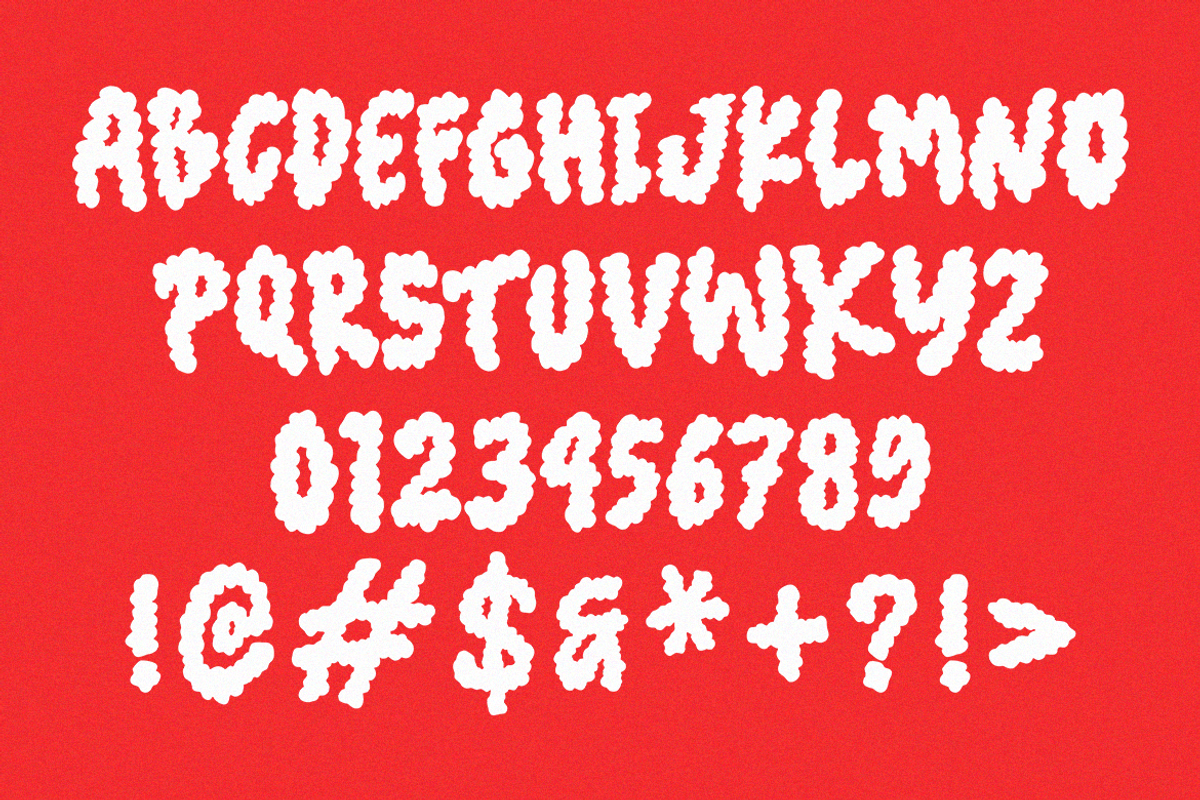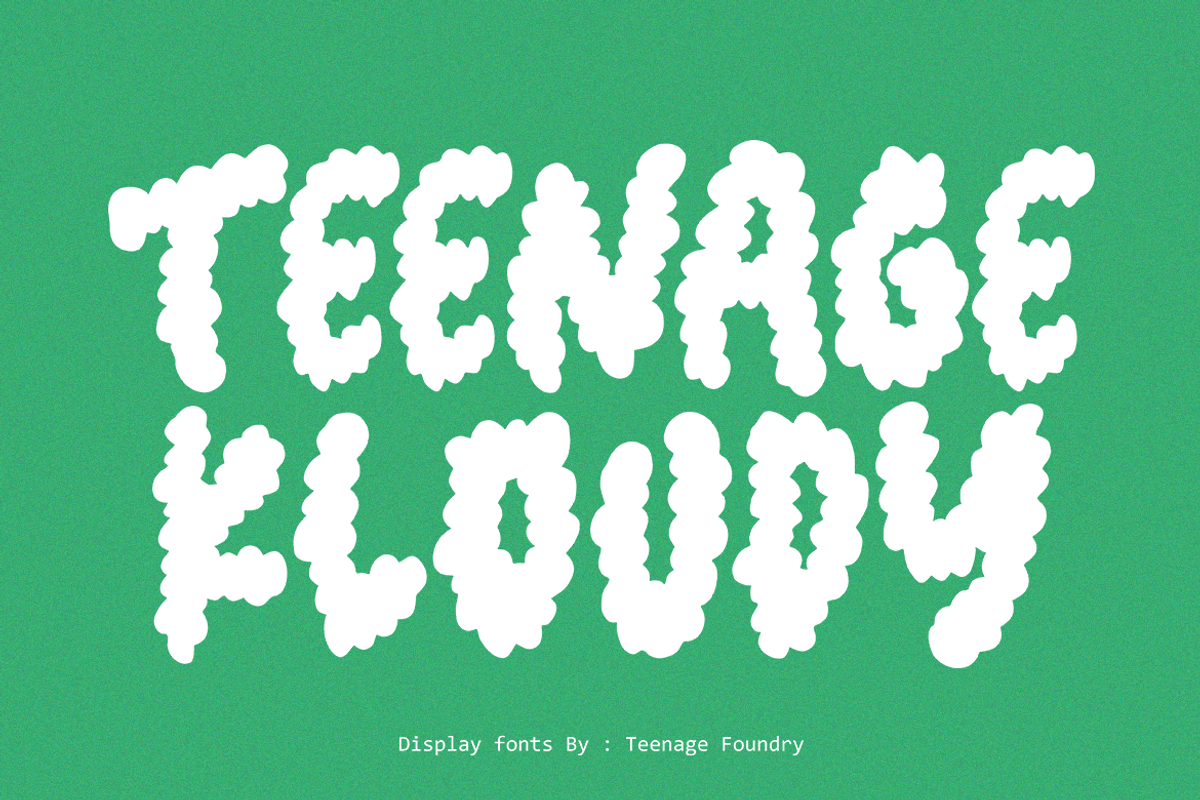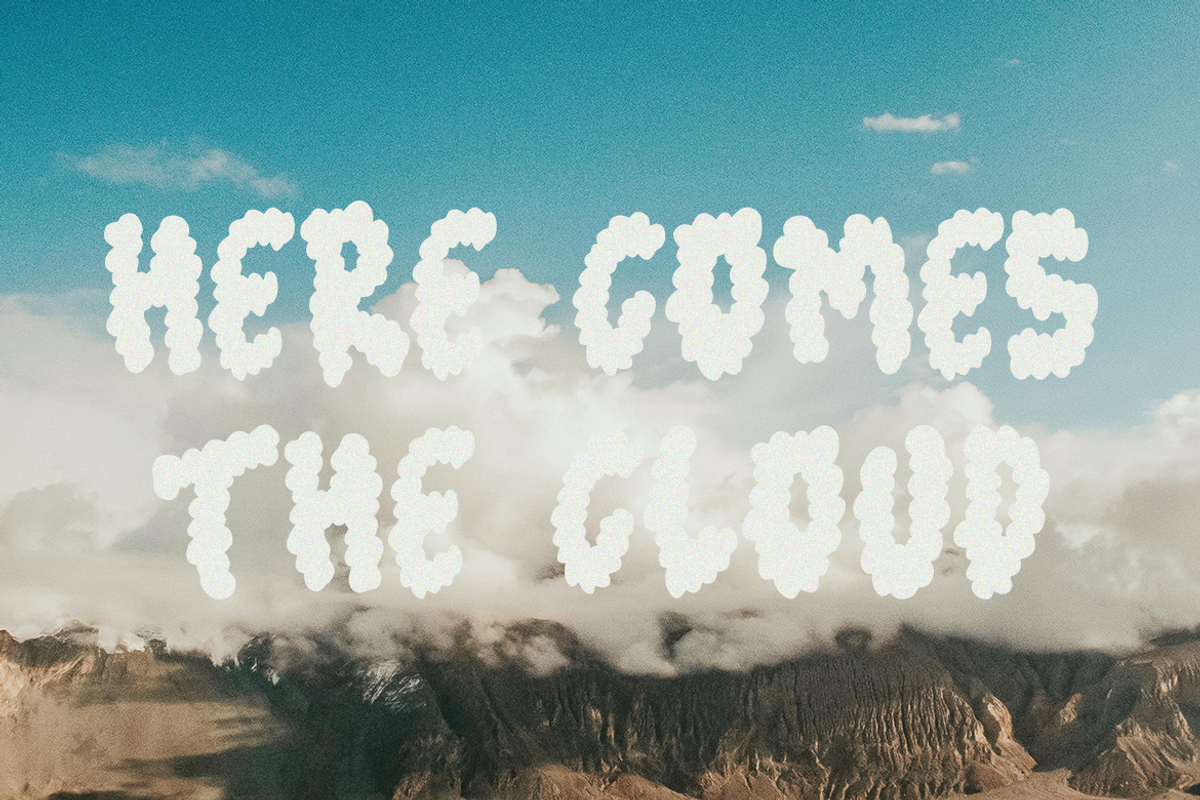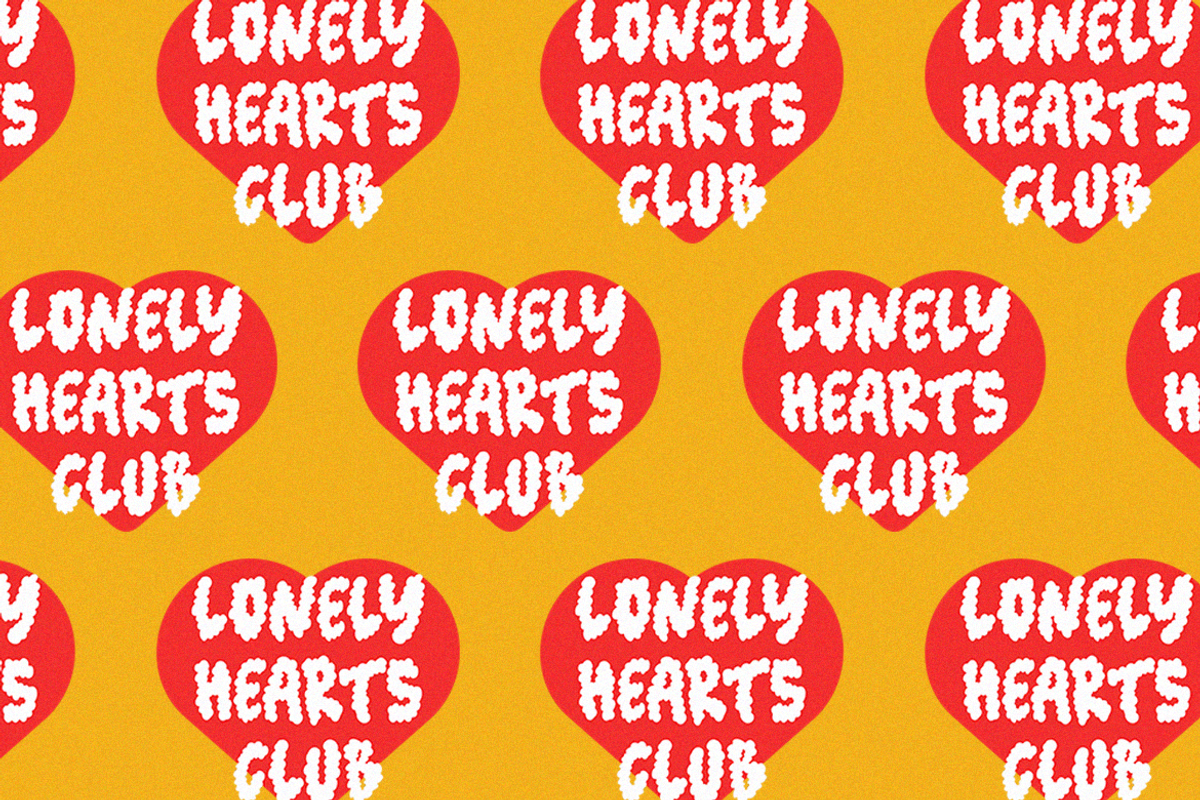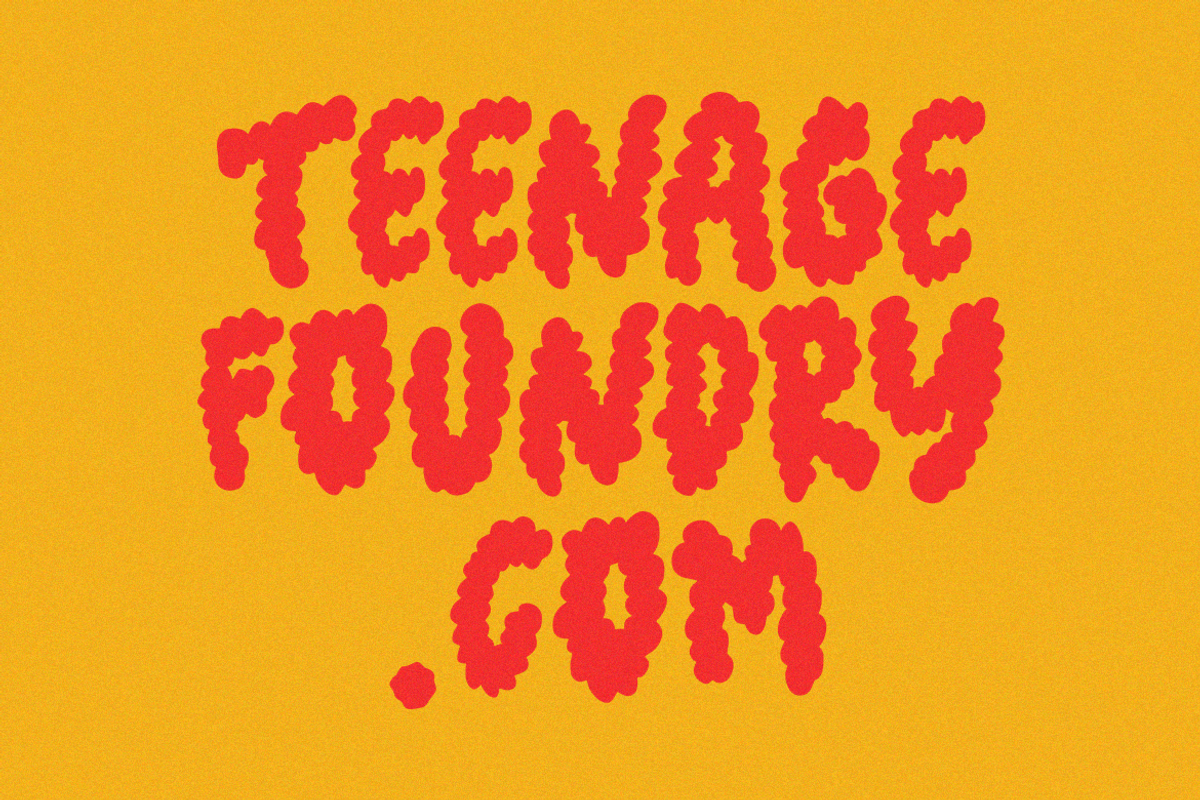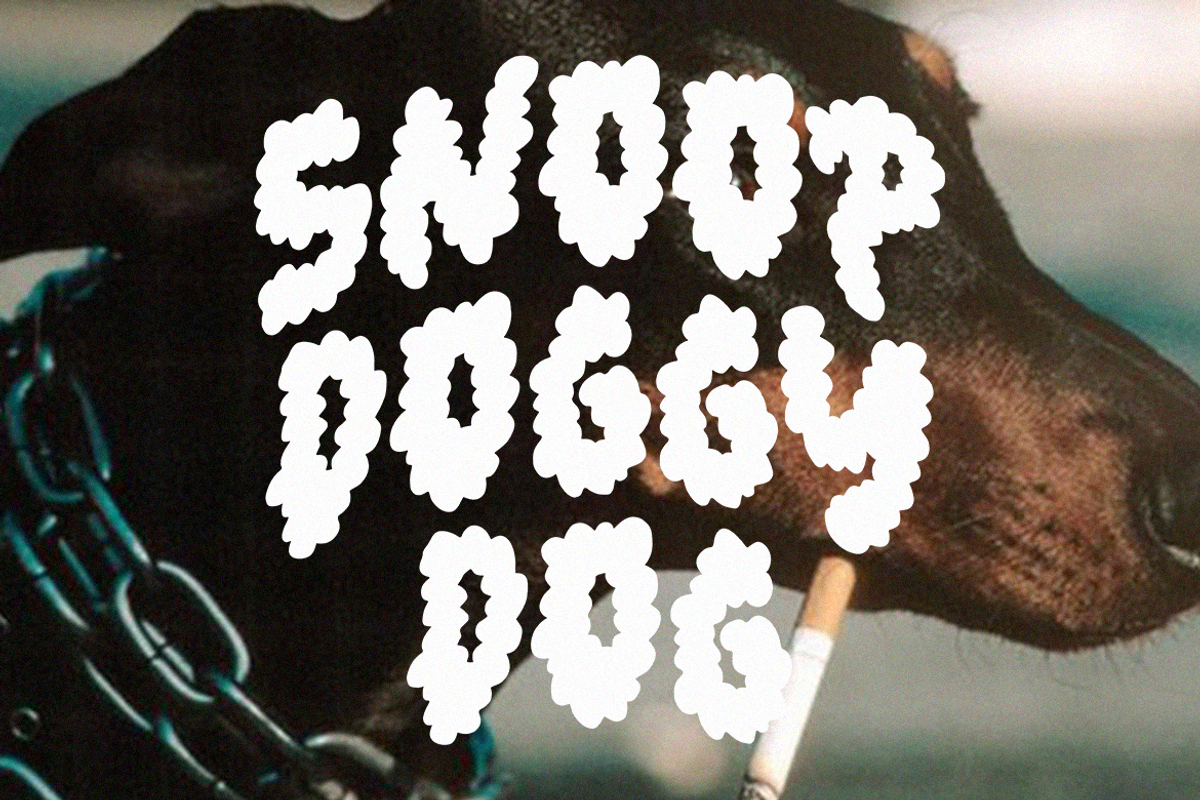
Teenage Kloudy
Introducing by Teenage Foundry!
Teenage Kloudy is a unique and whimsical display font that resembles fluffy clouds floating in the sky.
The soft curves and puffy shapes of each letter give off a sense of lightness and serenity, making it perfect for designs targeting a teenage or youthful audience.
Whether you're creating invitations, posters, or social media graphics, "Teenage Kloudy" will bring a sense of joy and wonder to your typography.